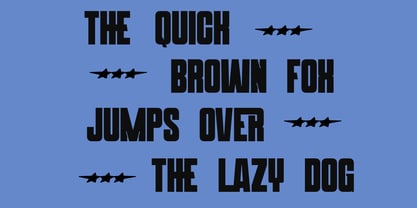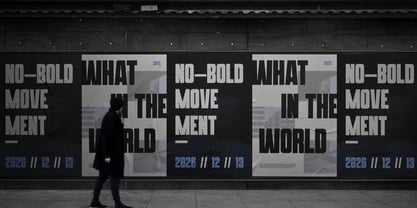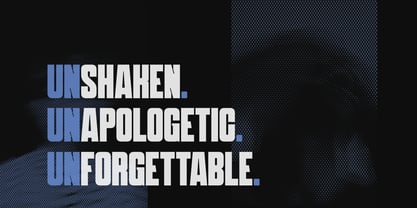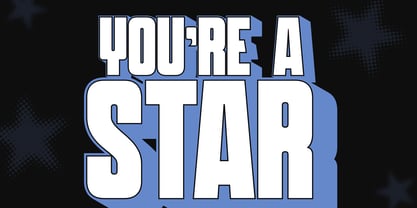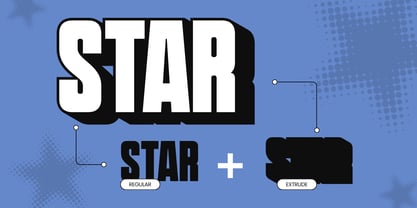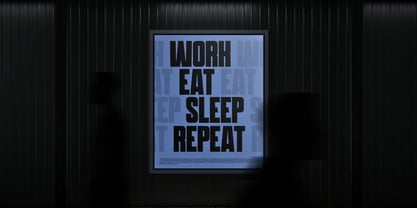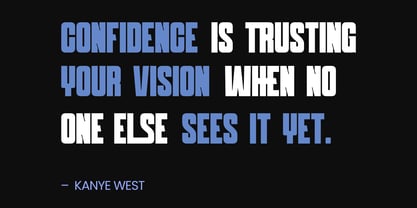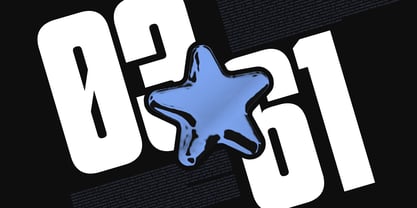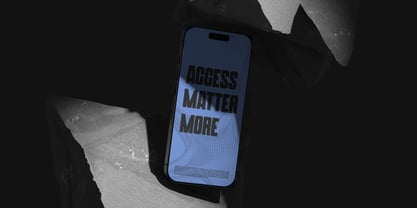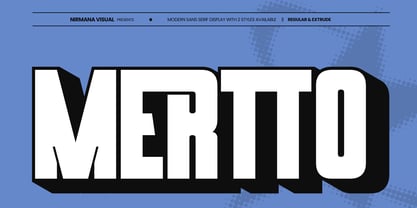
Mertto Modern
by Nirmana Visual
The Mertto Modern Font Family was designed by Sigit Dwipa and published by Nirmana Visual. Mertto Modern contains 2 styles and family package options. More about this family
Mertto Modern is a bold contemporary typeface crafted with powerful extrude details that add depth, dimension, and striking visual impact. Designed to stand out, it delivers a confident and dynamic presence for branding, posters, logos, advertising campaigns, mobile websites, labels, and product packaging. Its clean modern structure combined with 3D-style extrusion creates a strong, professional look that captures attention instantly. Mertto Modern is perfect for brands that want to appear innovative, stylish, and unforgettable.